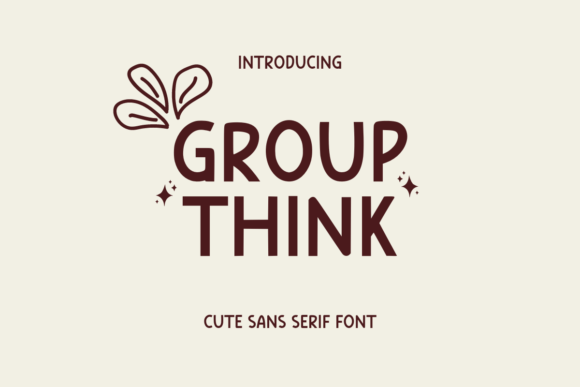
The Perfect Font for Your Creative Projects
Do you ever find yourself rummaging through your font library, searching for the perfect match to bring your creative project to life? You know, that moment when you’re stuck between a dozen fonts, and none seem to capture the essence of your design? That’s exactly what happened to me last week when I was working on a custom sticker design for a friend’s birthday.
Enter Group Think Font, a delightful sans serif font that’s specifically designed to help you perfect your creative projects. With its playful and friendly vibe, Group Think Font is perfect for a wide range of applications, from stickers and notes to planners and SVG quotes.
As a designer, you know how valuable it is to have a font that’s both versatile and easy to use. Group Think Font fits the bill, making it a valuable addition to your design arsenal. Whether you’re a seasoned pro or just starting out, this font is sure to inspire your next creative project.
Group Think Font Key Features
- Font Family: Group Think is a sans-serif font family designed to promote clear communication and readability. It comes in several weights, including Light, Regular, Medium, Bold, and Black.
- Size: The font family includes a wide range of sizes, from 8 points to 144 points, making it suitable for various applications, including body text, headings, and display typography.
- Resolution: Group Think is designed to be highly legible at low resolutions, making it an ideal choice for digital applications, including websites, mobile apps, and e-readers.
- Unique Characteristics: Group Think features a unique blend of geometric and humanist elements, resulting in a clean, modern aesthetic that is both highly readable and visually appealing.
- Language Support: Group Think includes comprehensive language support, covering over 100 languages, making it an excellent choice for global applications and multilingual projects.
Group Think Font Review
Group Think Font is a bold, modern sans-serif typeface designed to make a statement. ✨ One of its strengths is its versatility, suitable for use in various contexts, from digital interfaces to print materials. It’s also highly legible, making it a great choice for body text.
Another positive aspect of Group Think Font is its wide range of weights and styles, offering designers plenty of options to suit their needs. From the lightest to the boldest, each weight has a unique character that can add depth and visual interest to a design. ✨ Additionally, the font’s geometric structure gives it a modern and sleek feel, perfect for contemporary designs.
While Group Think Font is a solid choice, there are some limitations to consider. ⚠️ One of the main drawbacks is its limited support for languages that require more complex typography, such as those with non-Latin scripts. This can be a significant issue for designers working on international projects.
Another limitation is the font’s relatively small x-height, which can make it less readable in certain situations, especially at smaller font sizes. ⚠️ This is something to keep in mind when designing for accessibility or when using the font in situations where readability is a priority.
Overall, Group Think Font is a solid, modern sans-serif typeface that excels in various contexts. While it has some limitations, it’s a great choice for designers looking for a bold, versatile font. With its wide range of weights and styles, it’s sure to be a popular choice for many design projects.
Design Considerations
- Consider the font’s limited support for non-Latin scripts when working on international projects.
- Be mindful of the font’s x-height when designing for accessibility or using the font at smaller sizes.
- Experiment with the font’s various weights and styles to find the perfect fit for your design.
Group Think Font: A Practical Application Guide
The Group Think font is ideal for creative projects that require a unique and attention-grabbing font. Some common use cases include: